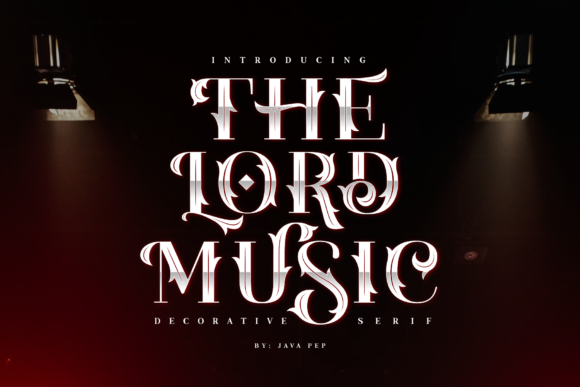
Behold, The Lord Music Font, a symphony of elegance and self-expression, awaits your creative touch. This decorative masterpiece effortlessly blends sophistication and playfulness, inviting you to create designs that resonate with your unique style.
Immerse yourself in the boundless possibilities of The Lord Music Font. Its versatility knows no bounds, allowing you to craft everything from formal designs that exude timeless charm to whimsical stationary art that sparks joy. Create everlasting social media posts that captivate audiences and leave an unforgettable impression.
With The Lord Music Font as your creative companion, you'll effortlessly design logos that demand attention, posters that ignite imaginations, and branding materials that establish a powerful online presence. Its captivating curves and intricate details add a touch of magic to every project, transforming ordinary words into extraordinary works of art.
Unleash your creativity and embark on a journey of self-expression with The Lord Music Font. Let your imagination soar as you craft designs that speak to your soul and capture the hearts of your audience. From heartfelt wedding invitations to eye-catching business cards, The Lord Music Font elevates your designs to new heights of beauty and distinction.
Don't settle for ordinary fonts that fade into the background. Embrace the allure of The Lord Music Font and let your creativity shine. Its versatility and charm will transform your designs into captivating masterpieces that leave a lasting impression.